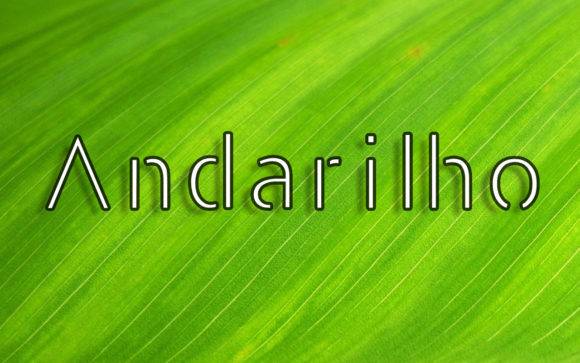
Andarilho Font for Cricut, Silhouette and Printable Designs
Andarilho is a display font crafted for compatibility with Cricut and Silhouette cutting machines, offering strong character design and high clarity for a variety of craft and printable applications. Its distinctive style ensures excellent results across both physical and digital creations. Whether you're designing intricate invitations or trendy home decor, this font brings an artistic flair to every project. For those seeking versatility, the anggiana font for crafting projects enhances your designs with its elegant curves and bold presence. Perfect for both novice and experienced crafters, it elevates your creations, making them stand out in any setting. The versatility of Andarilho makes it an ideal choice for personalized projects, allowing crafters to express their unique style. Additionally, users can explore angling dharmo font details, which provide an extraordinary contrast and flair to any design. This font not only enhances visual appeal but also elevates the overall crafting experience.
This font entity empowers makers to add flair to home decor, paper crafts, iron-on vinyl projects, and printables with ease and visual consistency. Whether you're customizing mugs, t-shirts, or planner labels, Andarilho provides a stylish foundation for all types of creations.
Optimized for digital crafting workflows, Andarilho stands out in large and small-scale formats while maintaining high readability.
- Bold style that translates well to print and cut
- Clear readability even at smaller sizes
Q: What is the style of the Andarilho font?
A: Andarilho is a bold, modern font suitable for cutting machines and printables, designed for easy readability and versatile styling.